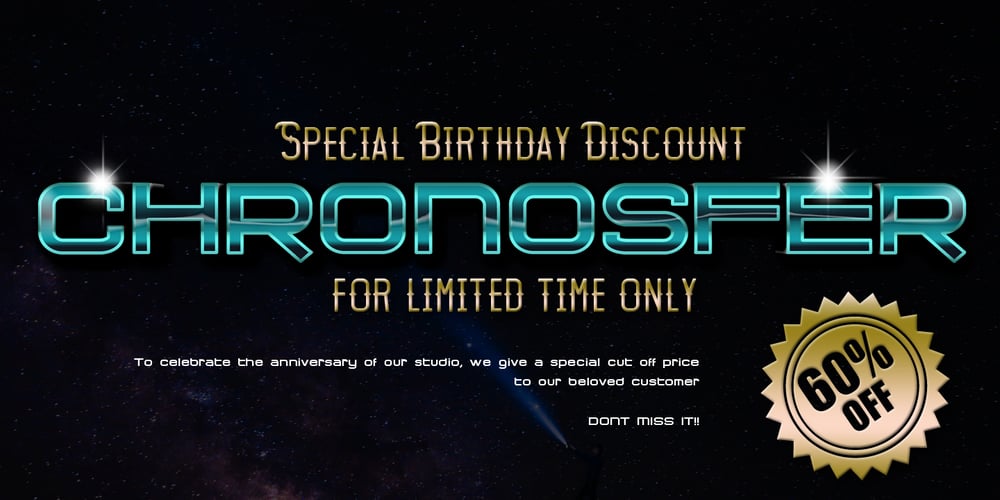
Chronosfer Font Family was designed by A A Ngurah A Krisna Teja and published by Anomali Creative. Chronosfer contains 6 styles and family package options. The concept of this font are Inspired by stories of space travel, interstellar war. social life in the galaxy. So we chose the name Chronosfer, which was said to be similar to Chromosphere. The chromosphere is the second most outer layer of the Sun. Several thousand kilometres thick, it resides above the photosphere and beneath the corona. Due to its low density, it is relatively transparent, resulting in the photosphere being regarded as the visual surface of the Sun.What Featured on this font? Glyphs count is 281 glyphs each style. Have some alternate characters International Language Support Best to use on Hi-Tech Style design Space or cosmos theme design